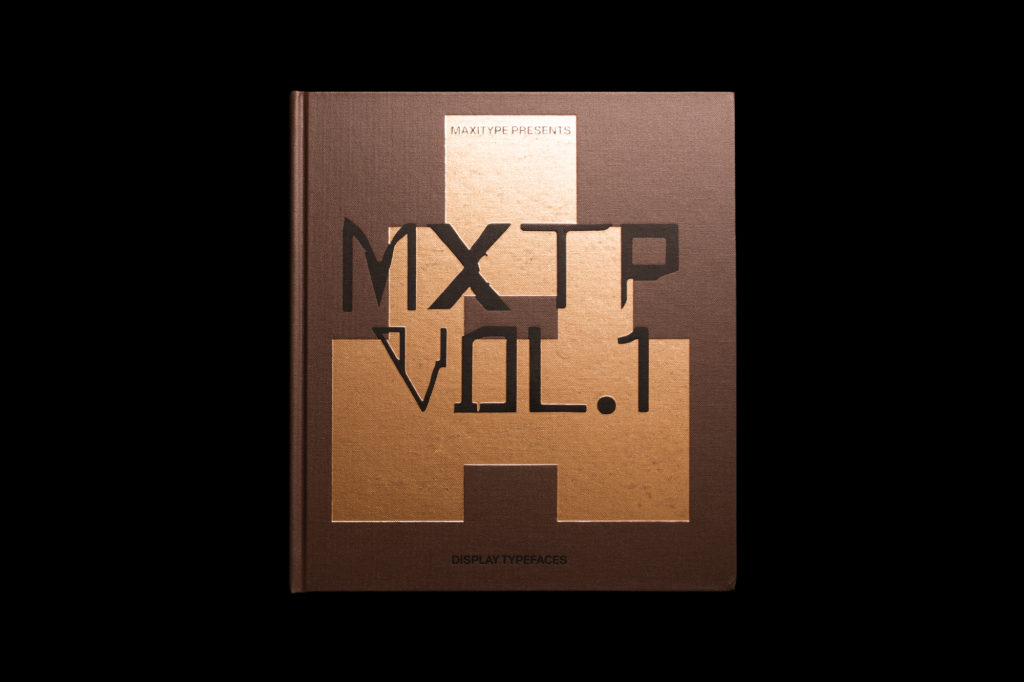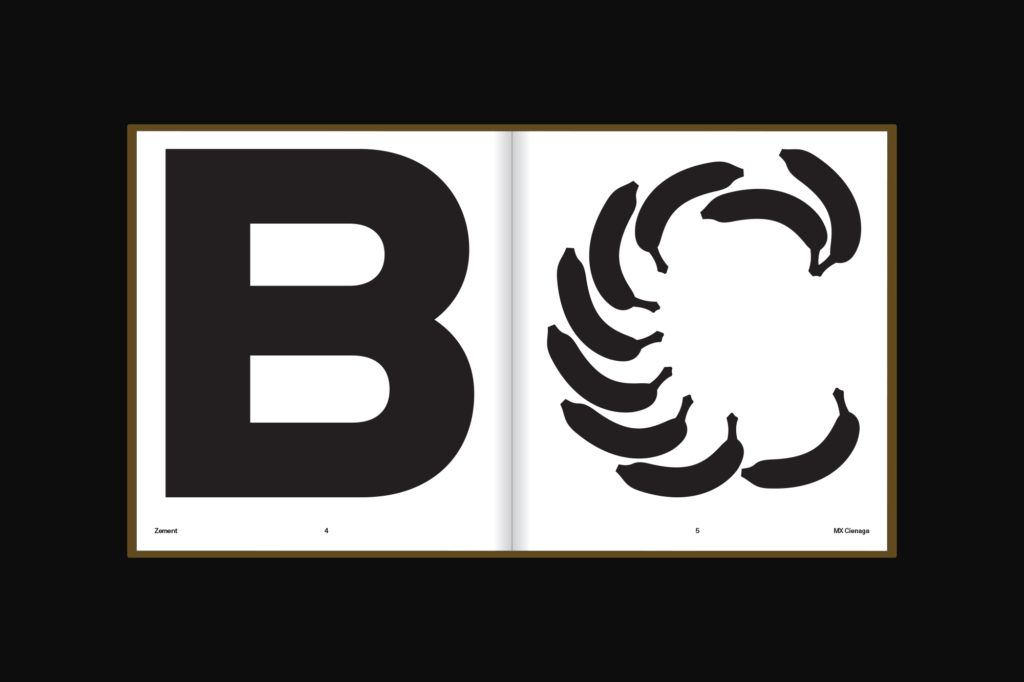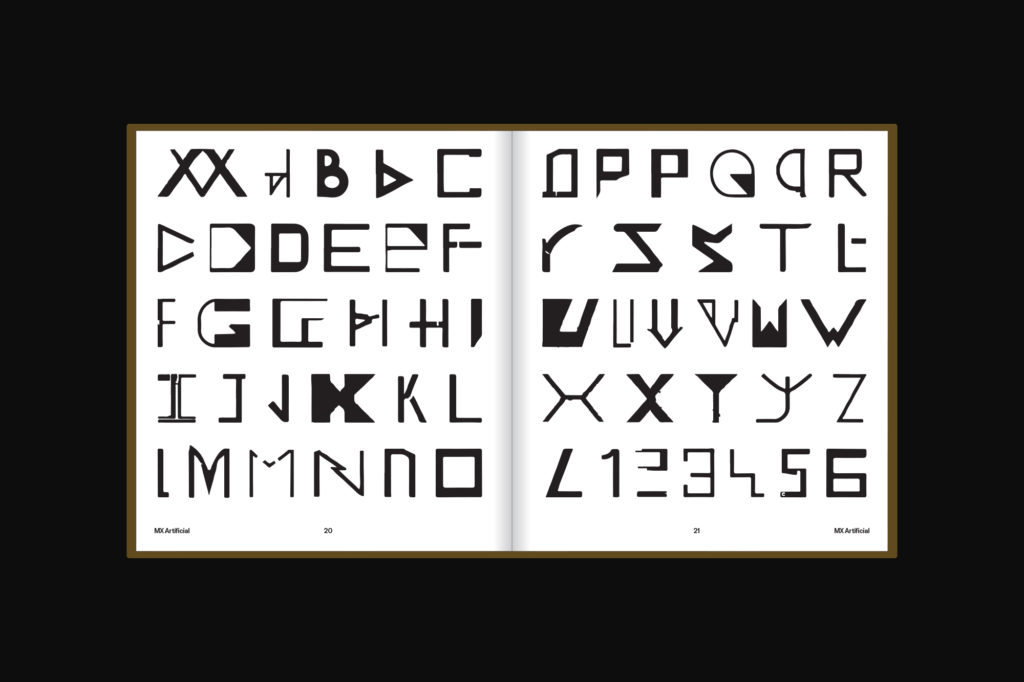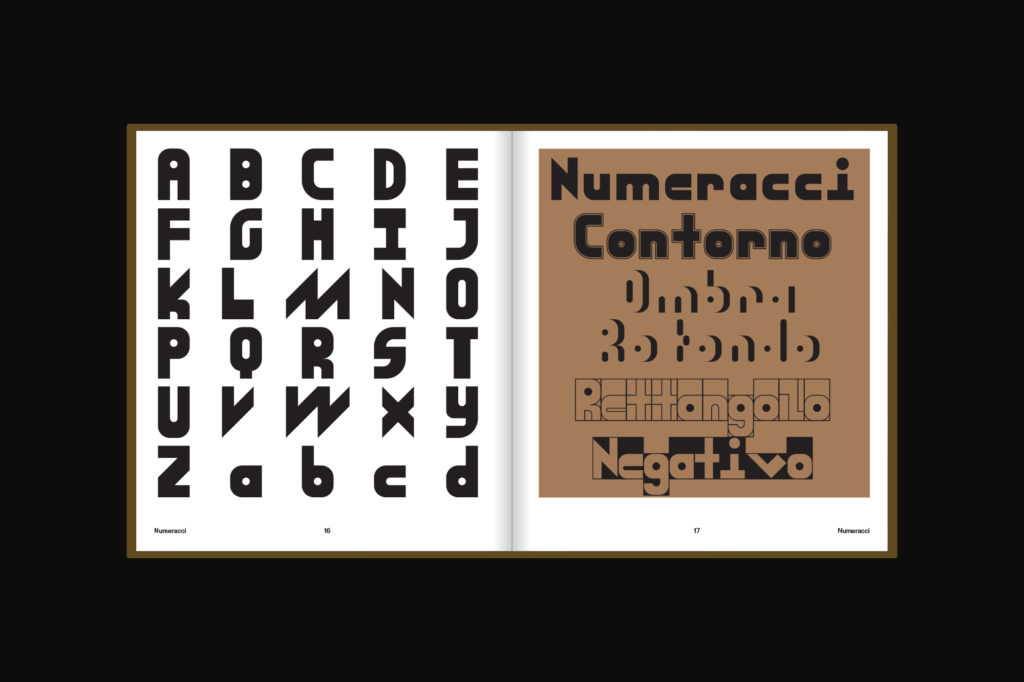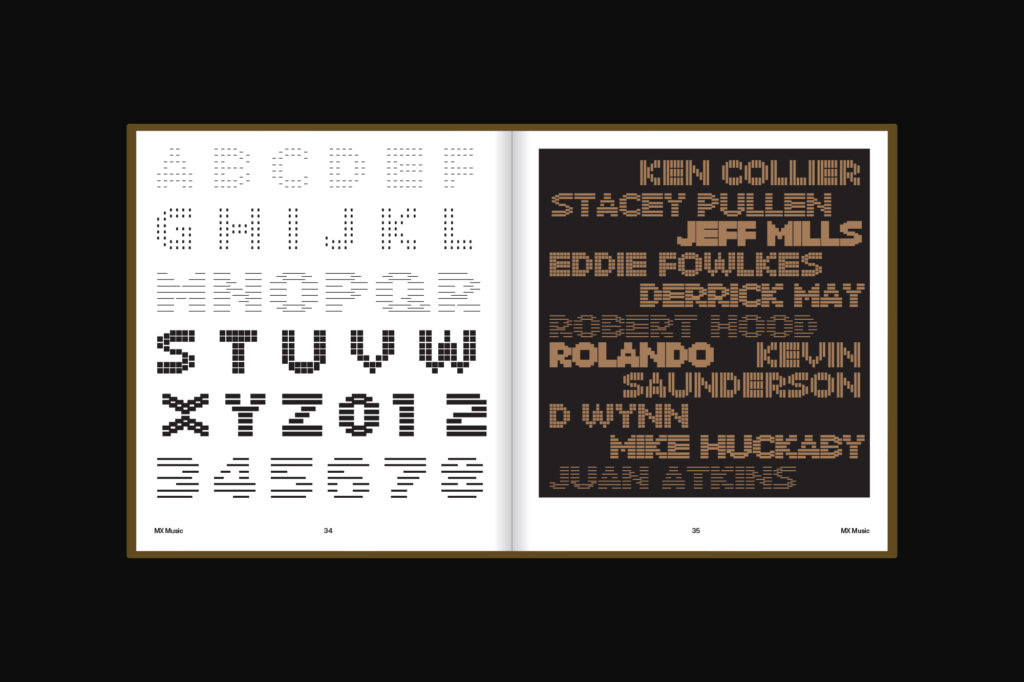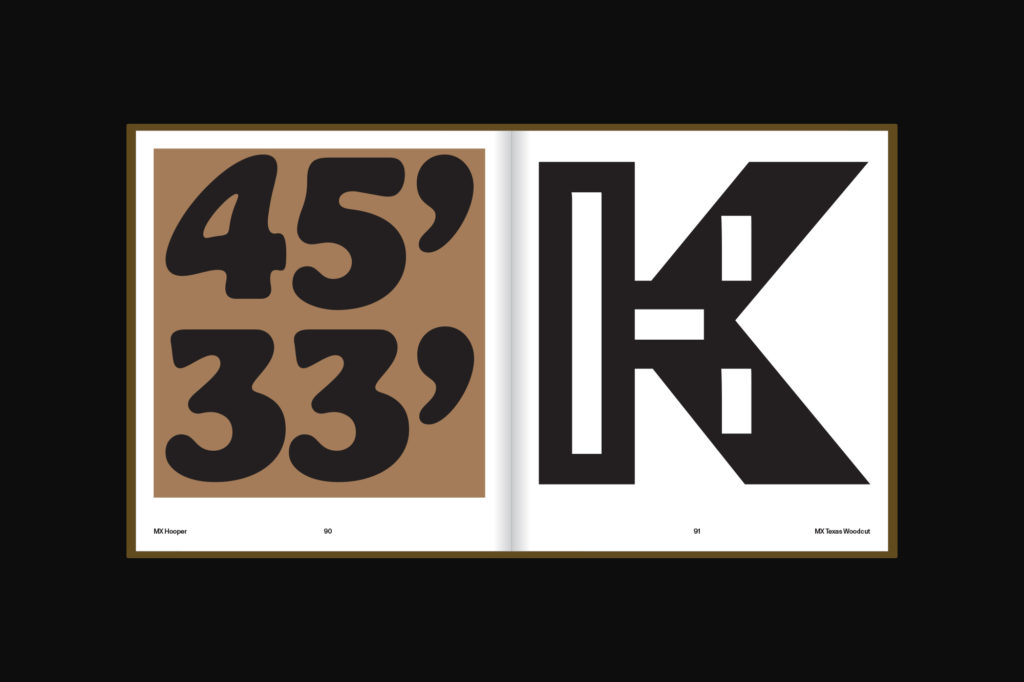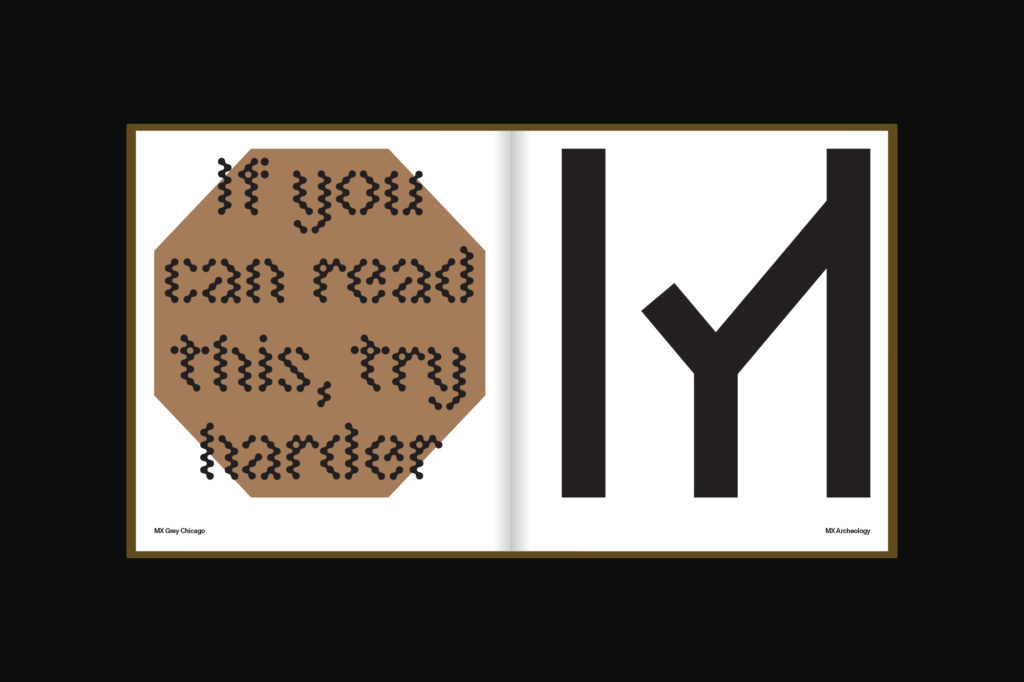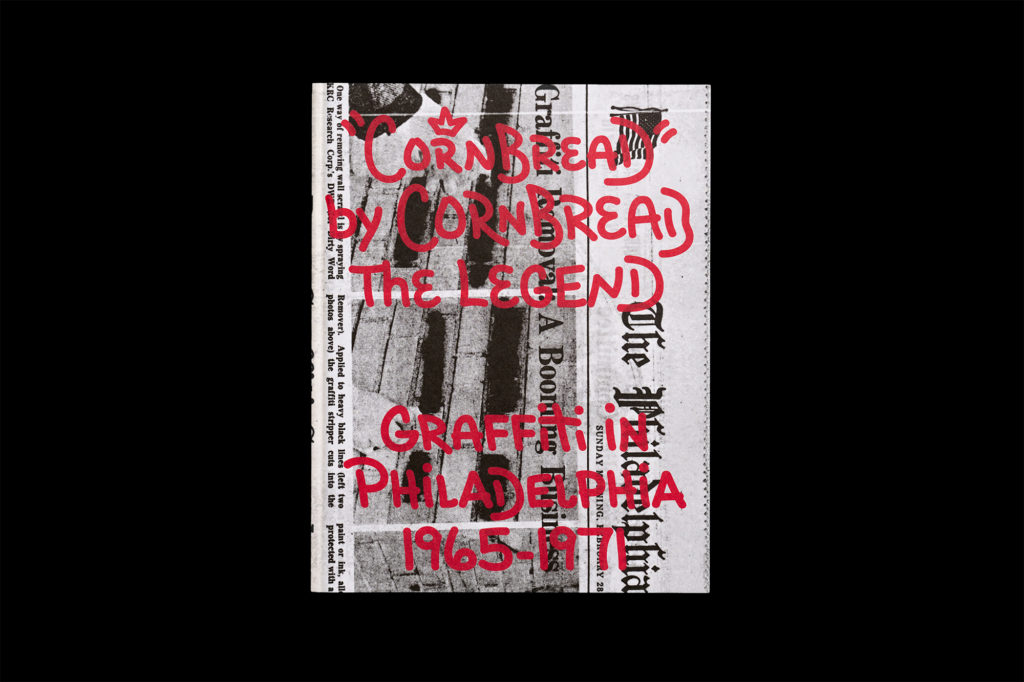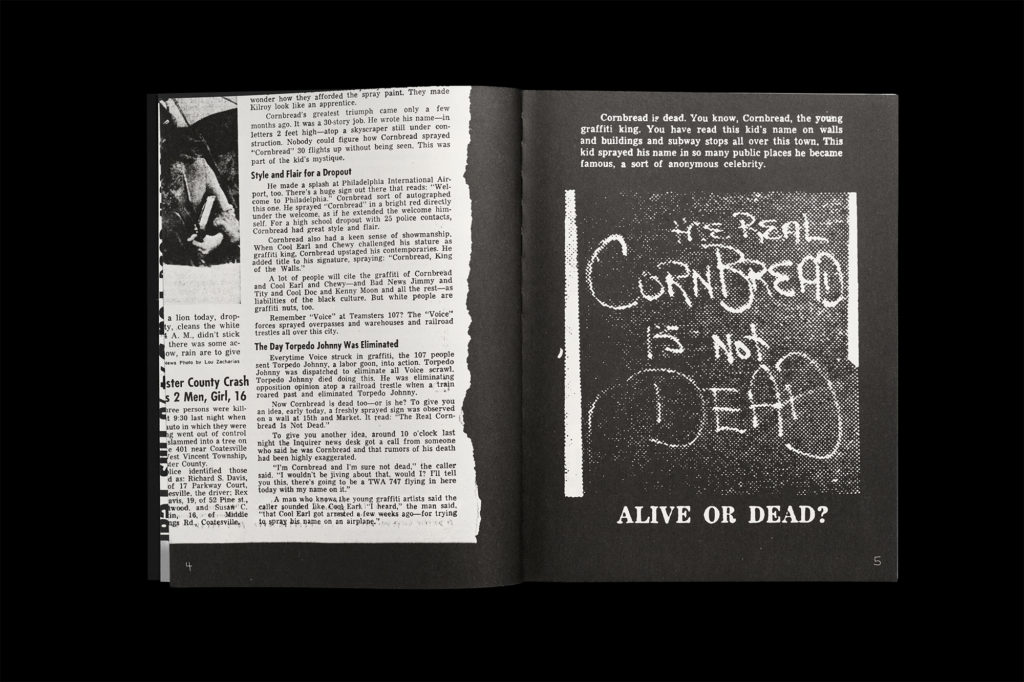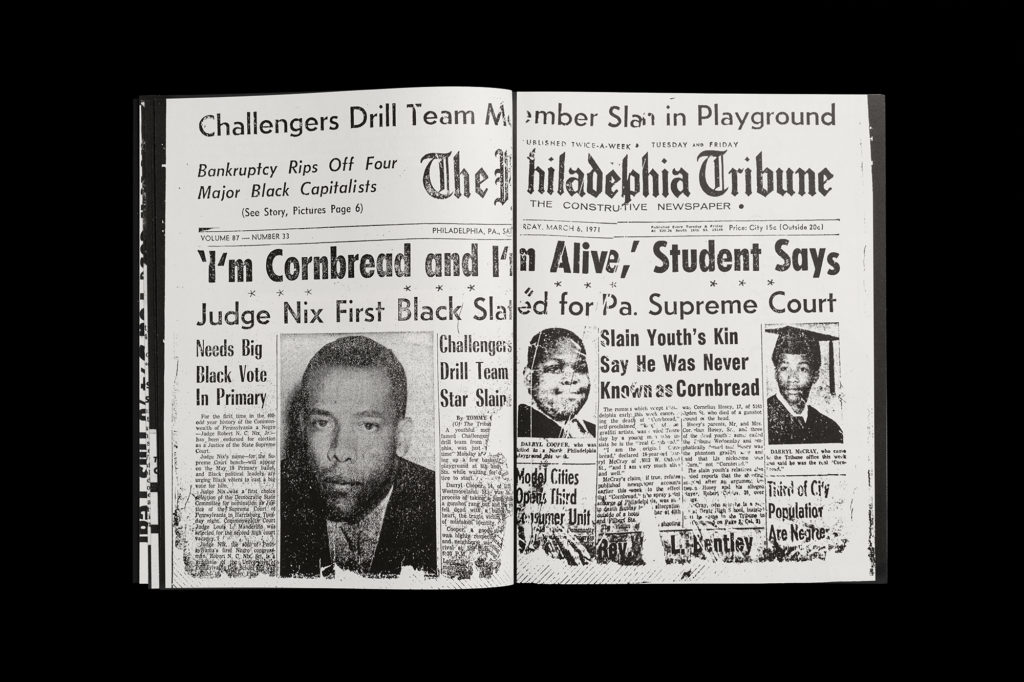
MXTP Vol. 2 (Music Typefaces)
Designed by Maximage & Eurostandard
Maxitype presents MXTP Vol. 2, a compilation of fonts initiated during a summer type residency and inspired by or designed for the music scene. From mainstream to underground subgenres—from grunge to jungle, boom-bap to cloud rap, dub to hardtek, drill to bouyon, classical to Italo disco, acid house to happy hardcore, minimal techno to death metal, French touch to Goa trance…
MXTP Vol. 1 (Display Typefaces)
Designed by Maximage
Maxitype presents MXTP Vol. 1, a compilation of blocky, funky, artificial, experimental, geometric, brainy, comic, distorted, remixed, organic, bubbly, pixelated, obsolete, brutal, reflective, regular, medium, sensitive, dusty, arrogant, sticky, unbalanced, trippy and bumpy display typefaces, designed mostly during the hot summer type residency programmes held by Maxitype and friends in Cucuron, Luberon, France.
Cornbread the Legend (2 ed.)
Designed by Maximage
Cornbread the Legend depicts the legendary story of Darryl ‘Cornbread’ McCray, the pioneer of modern graffiti. Explore archive newspapers, drawings, photographs, and an interview by Maxitype revealing his groundbreaking impact on the Hip Hop movement.
Maligne Booklet
The design of Maligne Booklet is based on Modèles de Lettres / Schriftformen / Types of Letters by Samuel Henchoz, Vevey 1960.
Teletext Type Specimen
Designed by Maximage
Teletext Type Specimen showcases Teletext, a humanist pixel typeface designed by Adrian Frutiger in 1979 and released by Maxitype in 2025.
OCR-X Type Specimen
Designed by Eurostandard
OCR-X Type Specimen showcases OCR-X, designed by Eurostandard and Maximage, a homage to and an extension of the infamous OCR-A typeface from 1966. With an essay by Jonas Berthod and The (X)erox Tales ASCII comic.
Signs Type Specimen
Designed by Marietta Eugster
in collaboration with Maximage & Åbäke
Signs Type Specimen showcases Signs, a typeface designed by Maximage. The images are sourced from the MTV Video Music Awards 2023 broadcast. The publication is overprinted on waste paper (WPP), and each copy is slightly different.
Maxitype Journal №1
Designed by Maximage
Maxitype Journal №1 is published on the occasion of the New York Art Book Fair 2024 and includes background information and references about the following typefaces: Metaballs, Rhymes, Signs, Selecta, OCR-X, Eurocat, Mosaic, Cornbread, Maligne. Essays by Jonas Berthod and Maxitype.
Archeology of Consequent Forms
Rhymes Type Specimen, 2021
Designed by Martin Groch & Jakub Samek
Rhymes Type Specimen has been published on the occasion of the Jan van Eyck Academy Open Studios 2021. With texts by Persis Bekkering and Jakub Samek.